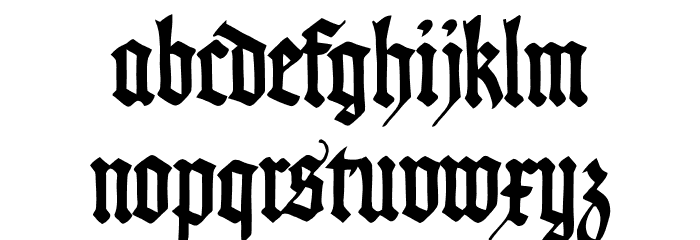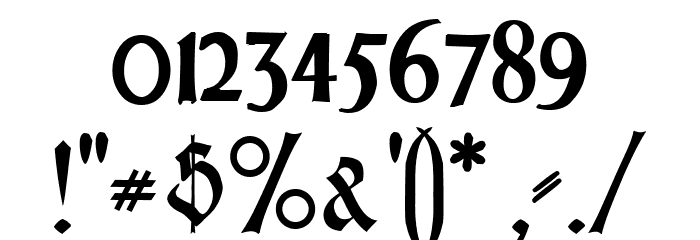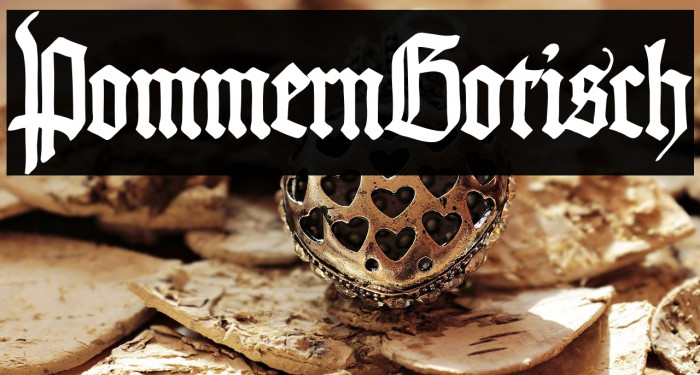
PommernGotisch Font
This font embodies the traditional Blackletter style, characterized by its intricate and ornate letterforms. The uppercase letters feature sharp, angular strokes with decorative flourishes, while the lowercase letters maintain a consistent style with slightly less ornamentation. The numerals are bold and maintain the same gothic aesthetic, ensuring uniformity across all characters. Special characters are designed with the same attention to detail, making them suitable for various uses. The overall appearance is bold and striking, perfect for making a statement.
A bold, intricate Blackletter font with ornate details.
- Proposed Projects: Ideal for historical documents, certificates, branding for vintage-themed products, or any project needing a medieval or gothic touch.
- Category: Blackletter
- Overall Style: Vintage
- Use Case: Logos, Headlines, Decorative purposes